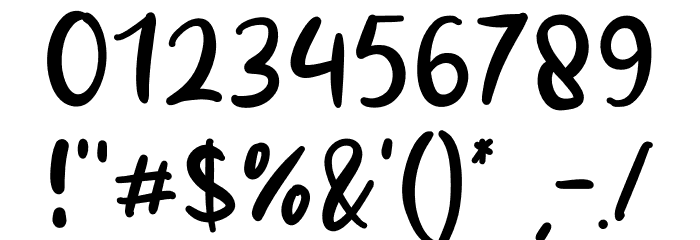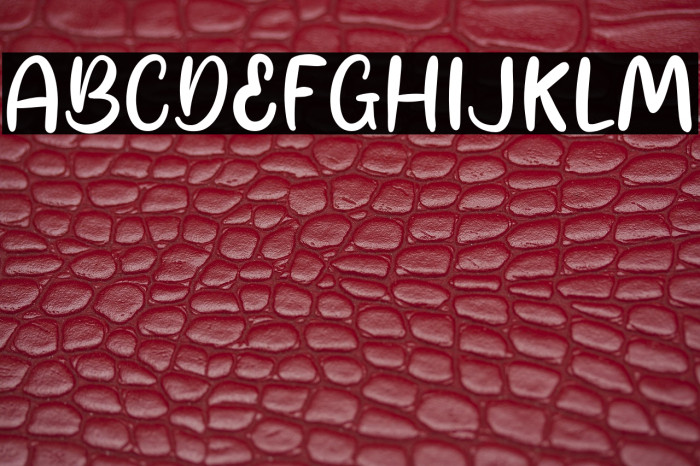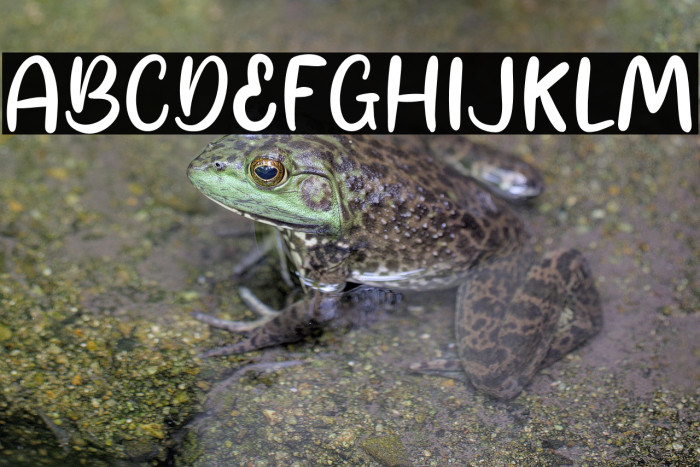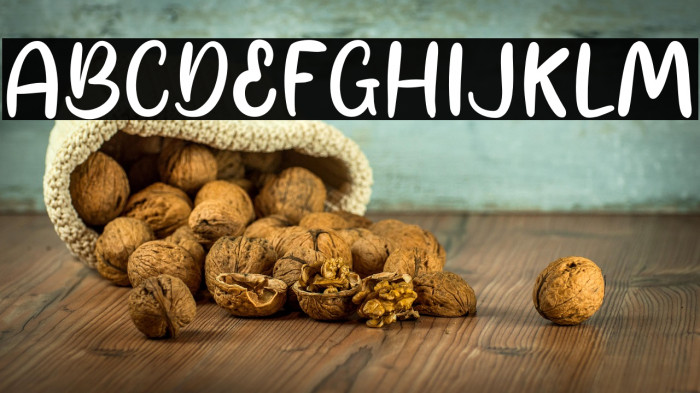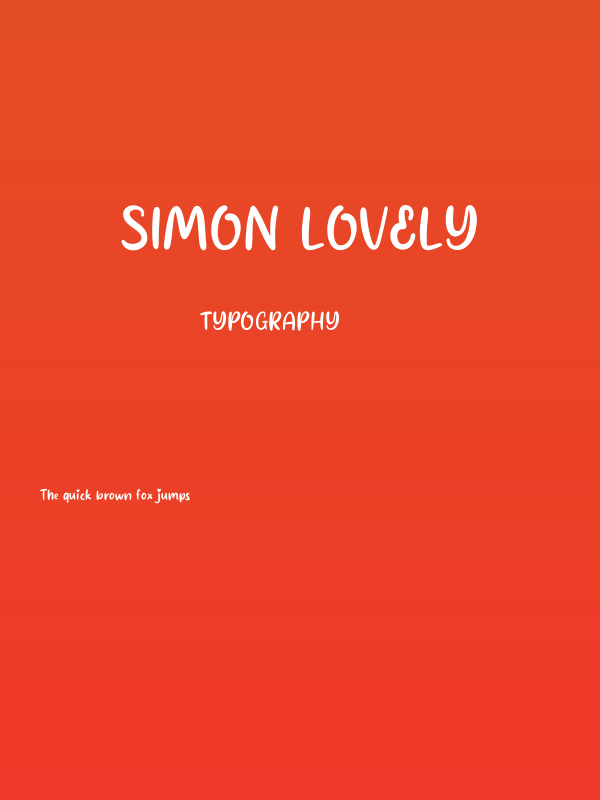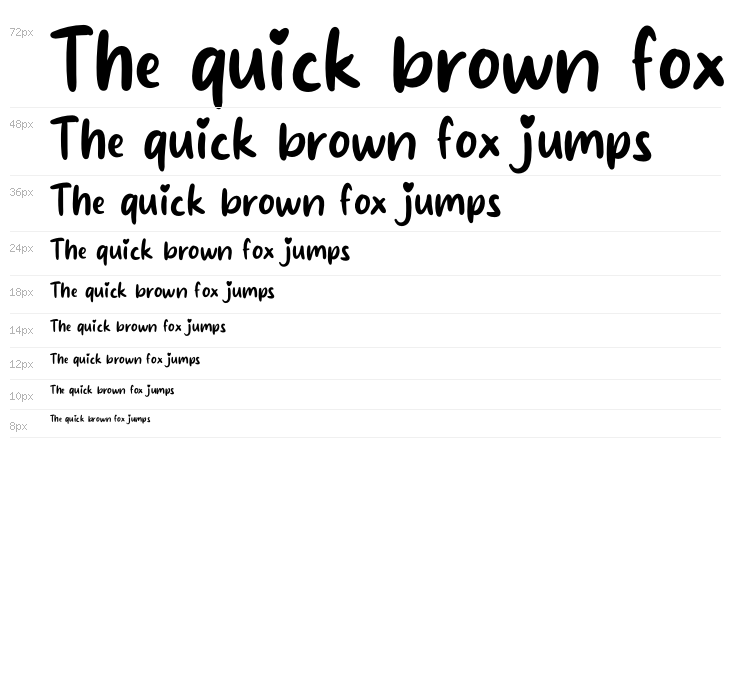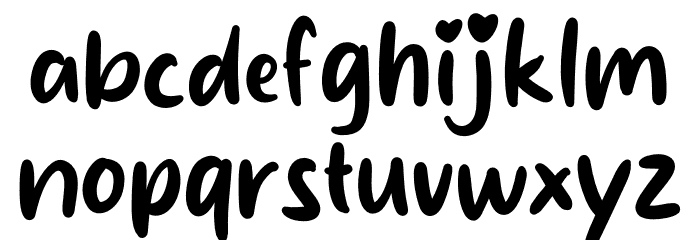
Simon Lovely Font
Simon Lovely Description
This font exudes a playful and whimsical charm, characterized by its rounded, flowing letterforms that convey a sense of joy and creativity. The uppercase and lowercase letters maintain a consistent style, with smooth curves and a slightly informal appearance. The numbers and special characters are equally expressive, adding to the font's overall lively and friendly demeanor. The heart-shaped dots above the lowercase 'i' and 'j' add a unique and endearing touch, making it particularly suitable for designs that aim to evoke warmth and affection.
Overall StylePlayful
Use CaseLogos, Invitations, Greeting Cards
Proposed ProjectsIdeal for greeting cards, children's books, playful branding, and creative invitations.